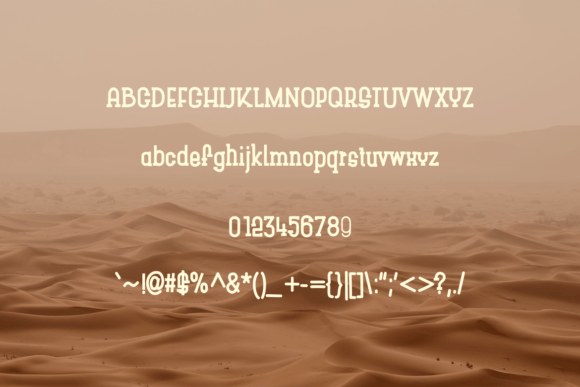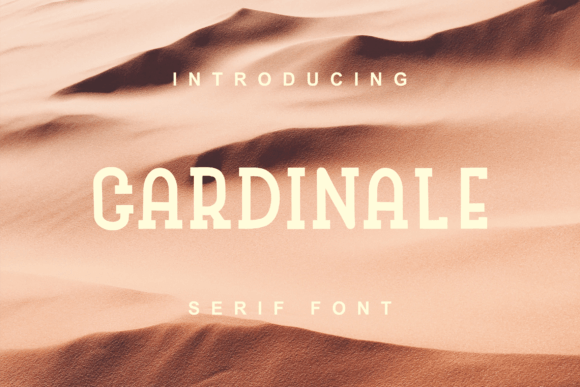
The Elusive Font: A Designer’s Journey with Cardinale
I still remember the frustration of working on a project, hours spent searching for the perfect font, only to come up empty-handed. My client wanted a classic, stylish serif font that would elevate their brand, but I was stuck. That’s when I stumbled upon Cardinale, a hidden gem that has since become a staple in my design toolkit.
A First Impression: What Makes Cardinale Special
Cardinale is a classic and stylish serif font that boasts a natural and unique style, making it incredibly fitting for a large pool of designs. **The only limit is your imagination!** With its elegant lines and refined features, Cardinale is perfect for designers, crafters, and creative hobbyists looking to add a touch of sophistication to their work.
What I Love About Cardinale ✨
- ✅ Elegant and refined design that’s perfect for high-end branding and luxury projects
- ✅ Highly legible, even at small font sizes, making it ideal for body text and captions
- ✅ Unique character set that adds a touch of personality to any design
- ✅ Extensive OpenType features, including glyphs and stylistic alternates, for added versatility
- ⚠️ Some users may find the font a bit too ornate for very casual or playful designs
- ⚠️ Limited availability of condensed or italic styles, which may limit its use in certain projects
A Practical Guide: Using Cardinale in Your Design Workflow
The Story Behind Cardinale: A Designer Inspiration
Cardinale was designed by a team of typographers who sought to create a font that would evoke the classic elegance of traditional serif fonts, while still feeling modern and unique. **The result is a font that’s both timeless and trendy**, perfect for designers looking to add a touch of sophistication to their work.
| Font Name | Cardinale Font |
| Author | zerologicstudio |
| What is Cardinale font? | Cardinale is a classic and stylish serif font designed for use in a variety of design projects, from branding and advertising to digital and print media. |
| Is Cardinale suitable for body text? | Yes, Cardinale is highly legible, even at small font sizes, making it ideal for body text and captions. |
| Does Cardinale support OpenType features? | Yes, Cardinale supports a range of OpenType features, including glyphs and stylistic alternates, which can be accessed in compatible design software. |